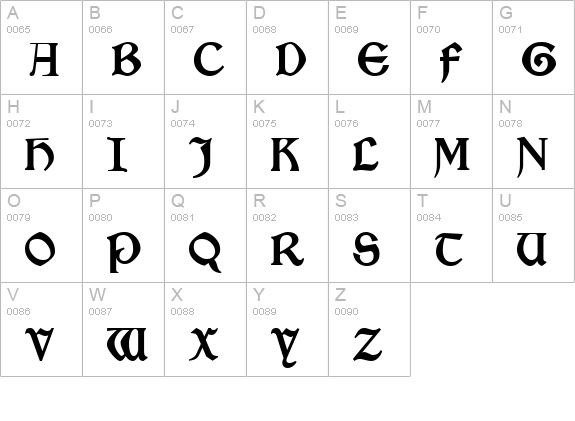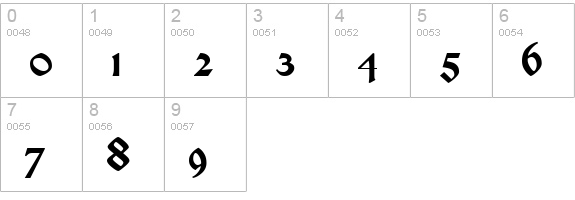
Satanick Regular Font Details
Satanick Regular is the standard, neutral variant in the Satanick typeface family \xE2\x80\x94 well suited to general body text, paragraphs, and standard typographic work.
Satanick Regular font is a captivating and bold typeface that exudes a sense of timeless elegance and sophistication. With its meticulously crafted letterforms and distinctive design, this font is sure to make a lasting impression on any project it graces. The Satanick Regular font boasts a perfect balance between classic and contemporary aesthetics, making it versatile and suitable for a wide range of creative endeavors. Whether you're designing a logo, crafting a poster, or creating eye-catching headlines, this font will effortlessly elevate your work to new heights. One of the most remarkable aspects of Satanick Regular font is that it is freely available to download at FontsMarket.com. This means that you can enjoy the beauty and versatility of this font without any cost or restrictions. It's a rare opportunity to access such a high-quality typeface without breaking the bank. With its clean lines, sharp edges, and impeccable attention to detail, Satanick Regular font is truly a standout in the world of typography. Its robust character set ensures that you have all the tools you need to bring your creative vision to life. So why wait? Take advantage of the opportunity to download the Satanick Regular font for free at FontsMarket.com and unleash your creativity today. Elevate your designs, captivate your audience, and make a lasting impression with this stunning and versatile typeface.